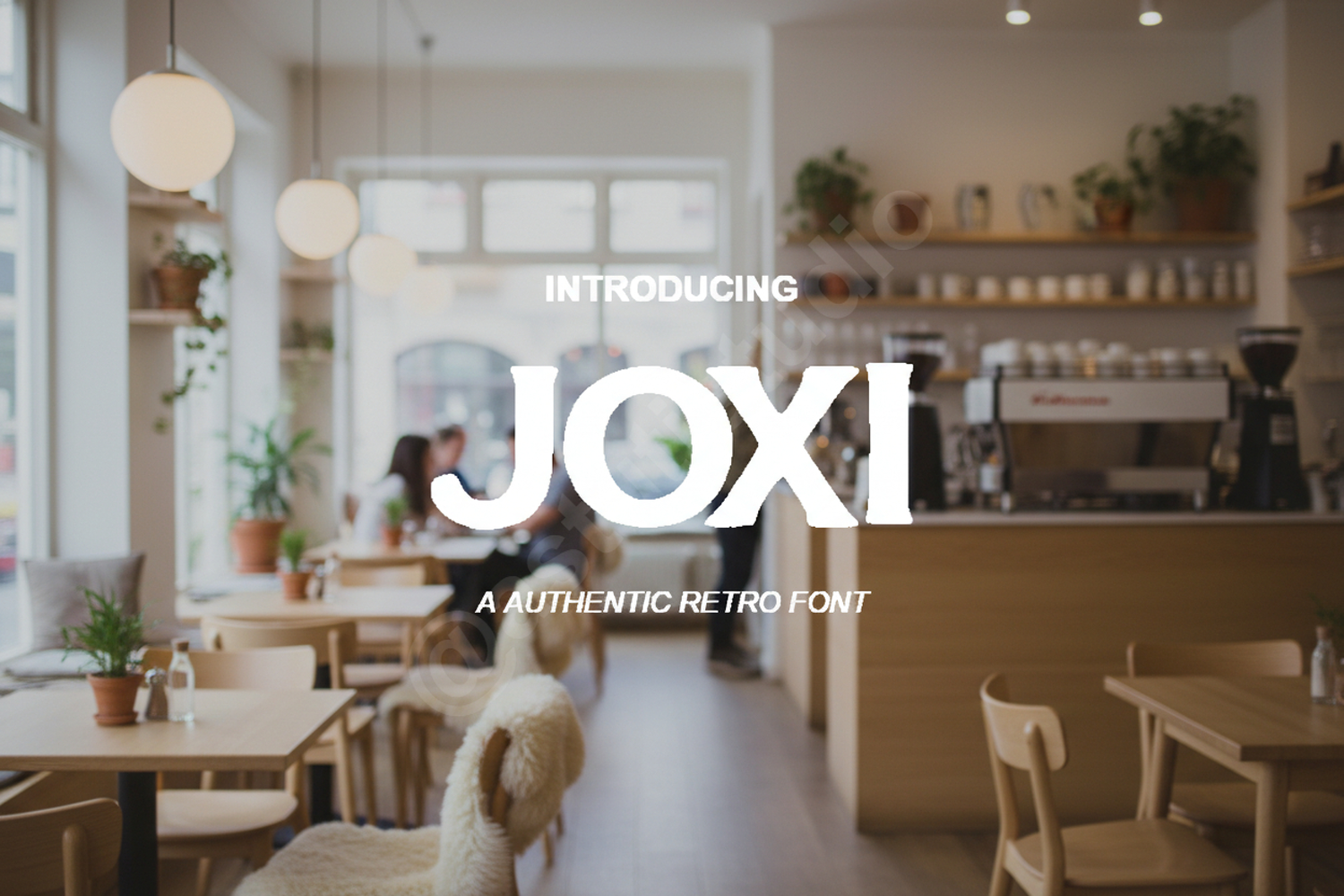
Joxi - Modern Minimalist Sans Serif
Joxi
Joxi is a premium sans-serif typeface that embodies modern sophistication and clean geometric precision. Designed for creators who demand versatility, this font balances contemporary style with exceptional readability, making it a must-have addition to any professional designer's toolkit. Whether you are working on a high-end corporate identity or a minimalist lifestyle brand, Joxi provides the perfect foundation for your creative vision.
- Full character set including uppercase, lowercase, numbers, and punctuation
- Comprehensive multilingual support for global projects
- Branding and Visual Identity: Create memorable logos and brand guidelines with a clean, professional look.
- Editorial Design: Perfect for magazine layouts, headlines, and body text that requires clarity.
- Social Media: Elevate your Instagram, Pinterest, and TikTok graphics with sleek, modern typography.
- Web Design: Fully optimized for digital screens to ensure a smooth and accessible user experience.
- Print Media: Ideal for business cards, posters, and high-end product packaging.